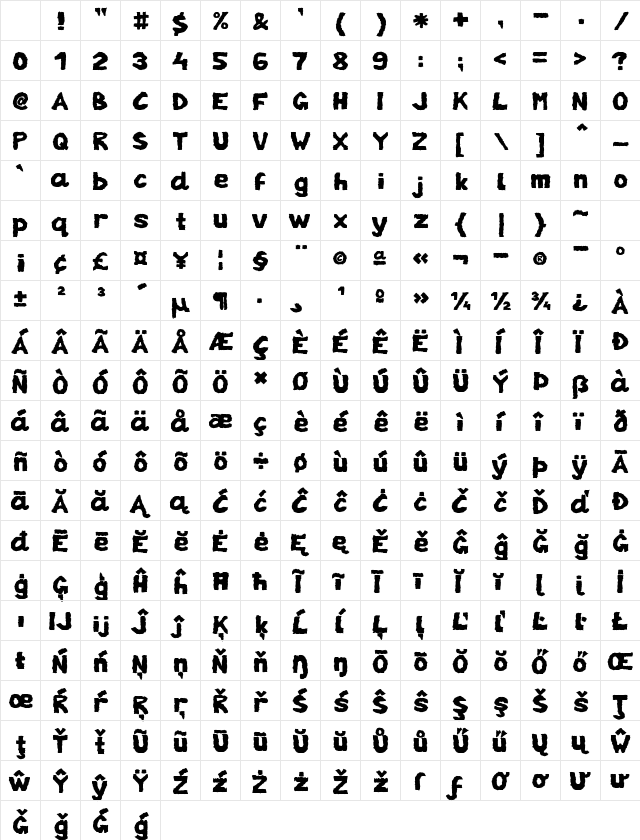
Complete zai Torn Paper Regular glyph index. Displaying only characters natively supported by zai Torn Paper Regular font.
zai Torn Paper is a composed and adaptable typeface that performs quietly and consistently across a wide range of design contexts.